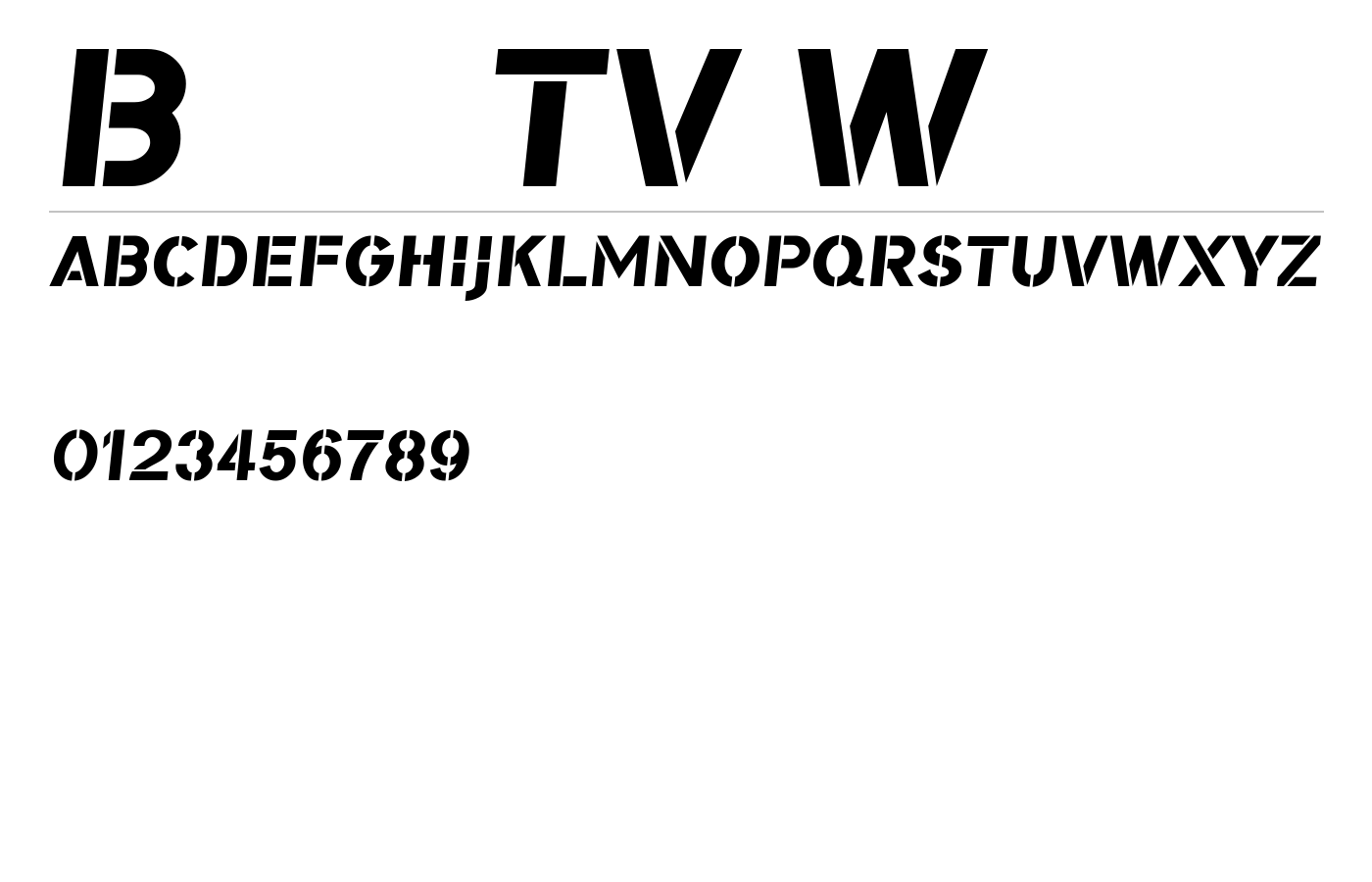
Bomber TV Wide is a bold, wide sans serif font with strong geometric shapes and a striking stencil effect that adds a dynamic, modern edge. Its sharp, angled lines and consistent stroke weight give it an energetic and commanding presence, making it ideal for impactful headlines, logos, and branding that need to convey strength and contemporary style. This font works especially well in designs that aim to attract attention with a sporty or industrial vibe.
Bomber TV Wide Font
About Bomber TV Wide Font